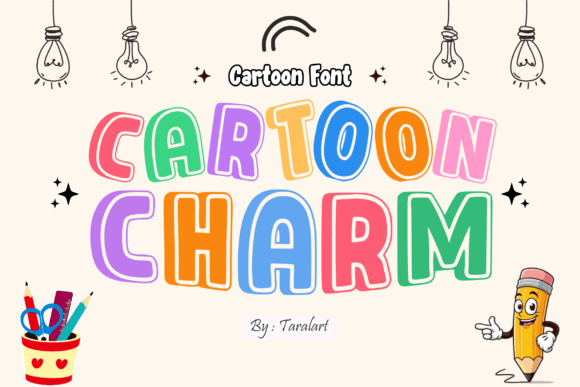
Introducing Cartooncharm Regular Font: The Ultimate Choice for Playful Designs
In the world of typography, fonts play a crucial role in conveying the tone and personality of a brand or design. When it comes to creating playful and engaging content, the right font can make all the difference. This is where Cartooncharm Regular Font comes in โ an upbeat and charming font that brings a touch of whimsy to every character. In this article, we’ll explore the features and benefits of Cartooncharm Regular Font and how it can elevate your designs to the next level.
What is Cartooncharm Regular Font?
Cartooncharm Regular Font, also known as โCartoon Charm,โ is a uniquely delightful font that is designed to bring an adorable quality to each character. Its jolly aesthetic makes it the ideal choice for sprucing up your animation projects, comic titles, and a wide range of designs. This font is a conduit for your creativity, offering a versatile and playful way to express yourself.
The Benefits of Using Cartooncharm Regular Font in Your Designs
Cartooncharm Regular Font offers a multitude of benefits for designers, including:
- Playful aesthetic: The font’s playful and upbeat design makes it perfect for creating engaging and fun content.
- Versatility: Cartooncharm Regular Font can be used for a wide range of designs, from animation projects to comic titles, t-shirts, mugs, and tote bags.
- Creativity booster: The font’s unique and delightful design is sure to inspire your creativity and take your designs to the next level.
- Easy to read: Despite its playful design, Cartooncharm Regular Font remains easy to read, making it perfect for body text and headings.
Use Cases for Cartooncharm Regular Font
Cartooncharm Regular Font is a versatile font that can be used in a variety of design projects, including:
- Animation projects: The font’s playful design makes it perfect for animation projects, such as cartoons, comics, and animated films.
- Comic titles: Cartooncharm Regular Font is an excellent choice for comic titles, adding a touch of whimsy and fun to your comic book designs.
- T-shirts and apparel: The font’s bold and playful design makes it perfect for t-shirts, hoodies, and other apparel.
- Mugs and stationery: Cartooncharm Regular Font is also great for designing mugs, tote bags, and stationery, adding a touch of personality to everyday items.
Design Tips for Using Cartooncharm Regular Font
To get the most out of Cartooncharm Regular Font, here are some design tips to keep in mind:
- Pair with contrasting fonts: Pair Cartooncharm Regular Font with contrasting fonts to create visual interest and hierarchy.
- Use bold and bright colors: The font’s playful design lends itself well to bold and bright colors, so don’t be afraid to experiment.
- Experiment with font sizes: Cartooncharm Regular Font can be used for both body text and headings, so experiment with different font sizes to create visual hierarchy.
In conclusion, Cartooncharm Regular Font is a uniquely delightful font that brings a touch of whimsy and playfulness to every character. Its versatility, creativity-boosting design, and ease of use make it an excellent choice for a wide range of design projects. Whether you’re working on animation projects, comic titles, or everyday designs, Cartooncharm Regular Font is sure to infuse your work with a bit of magic.